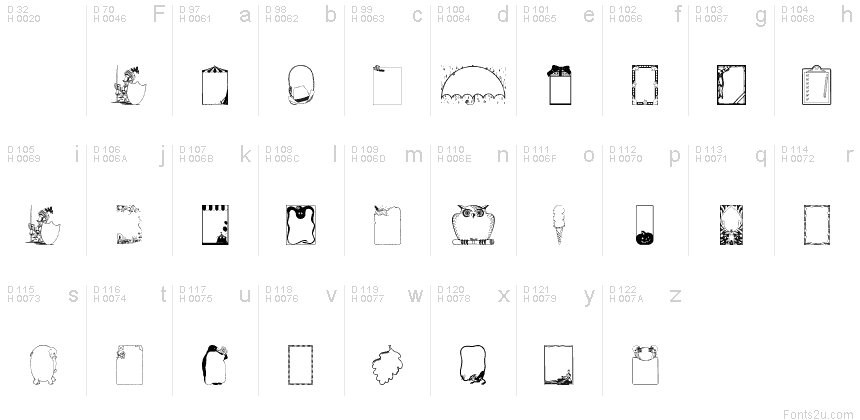
KiddyFrames by Lime is a free cartoon frame dingbat font built from whimsical illustrated borders and large blank centers. The designs mix storybook figures, shields, scroll-like panels, scalloped edges, and broad curved enclosures, all drawn with lively, slightly uneven outlines. Each symbol feels like a tiny comic scene.
As illustrated containers, these motifs can turn children's invitations and classroom worksheets into themed pages, with the open areas ready to hold names, messages, or simple artwork. Their medieval characters and playful shelter-like shapes also suit party printables, game handouts, and activity books, where the border becomes part of the subject rather than a generic box.